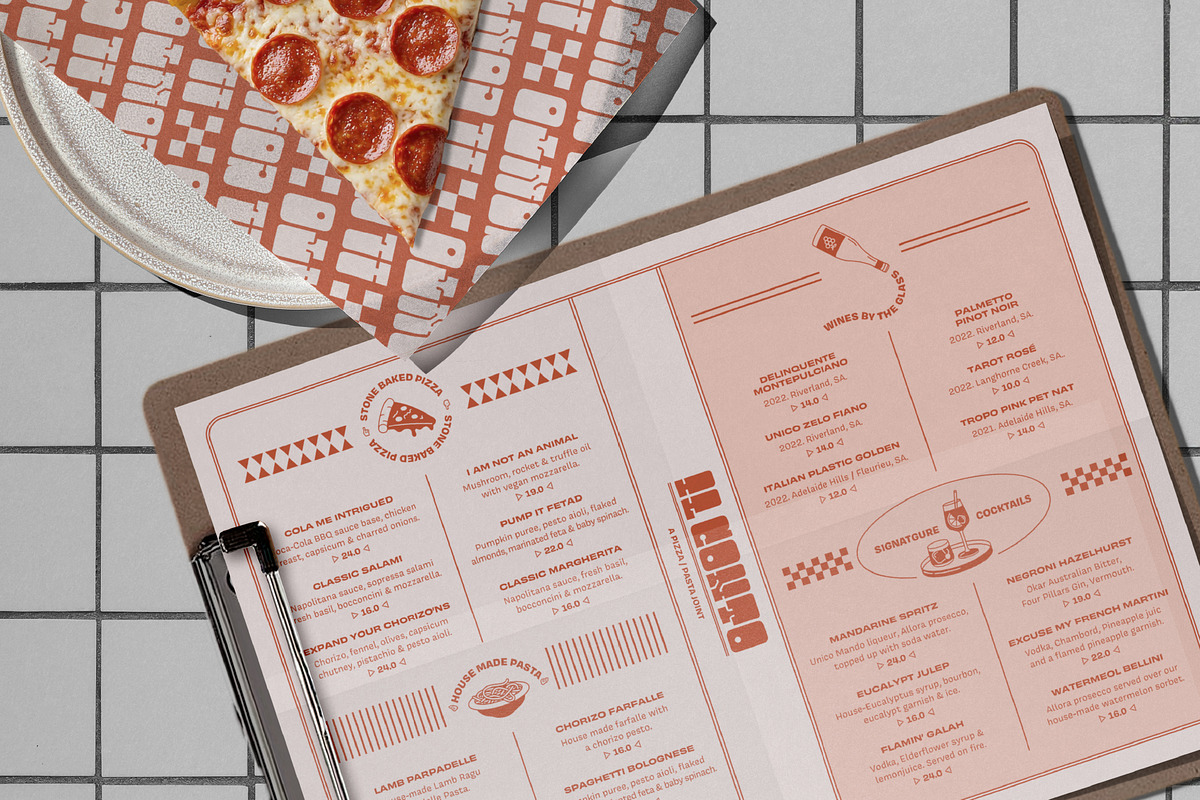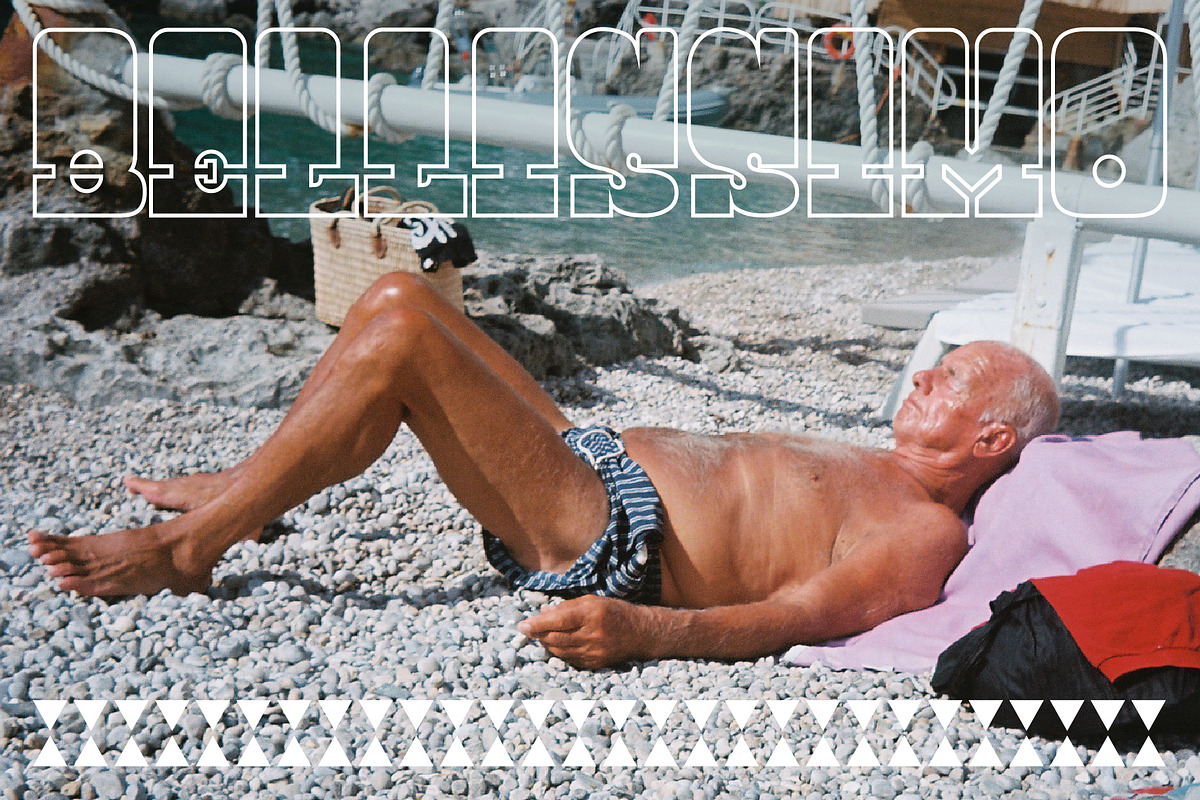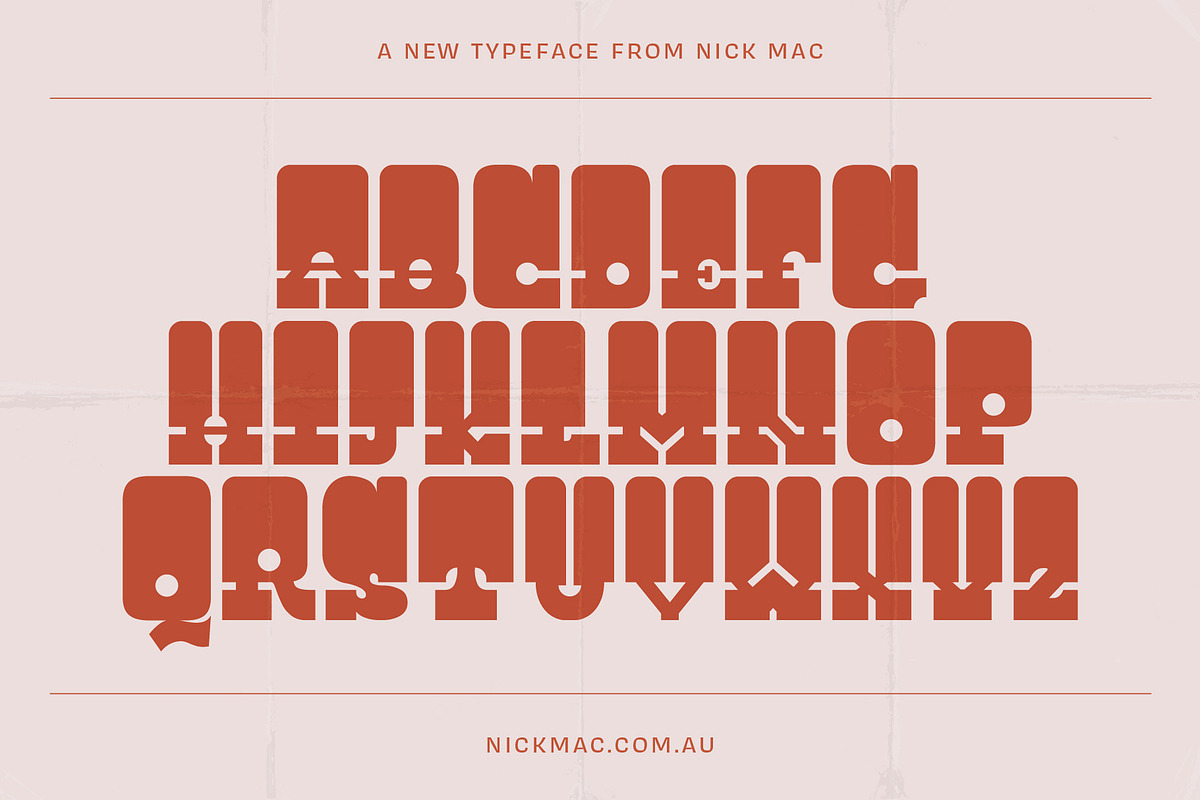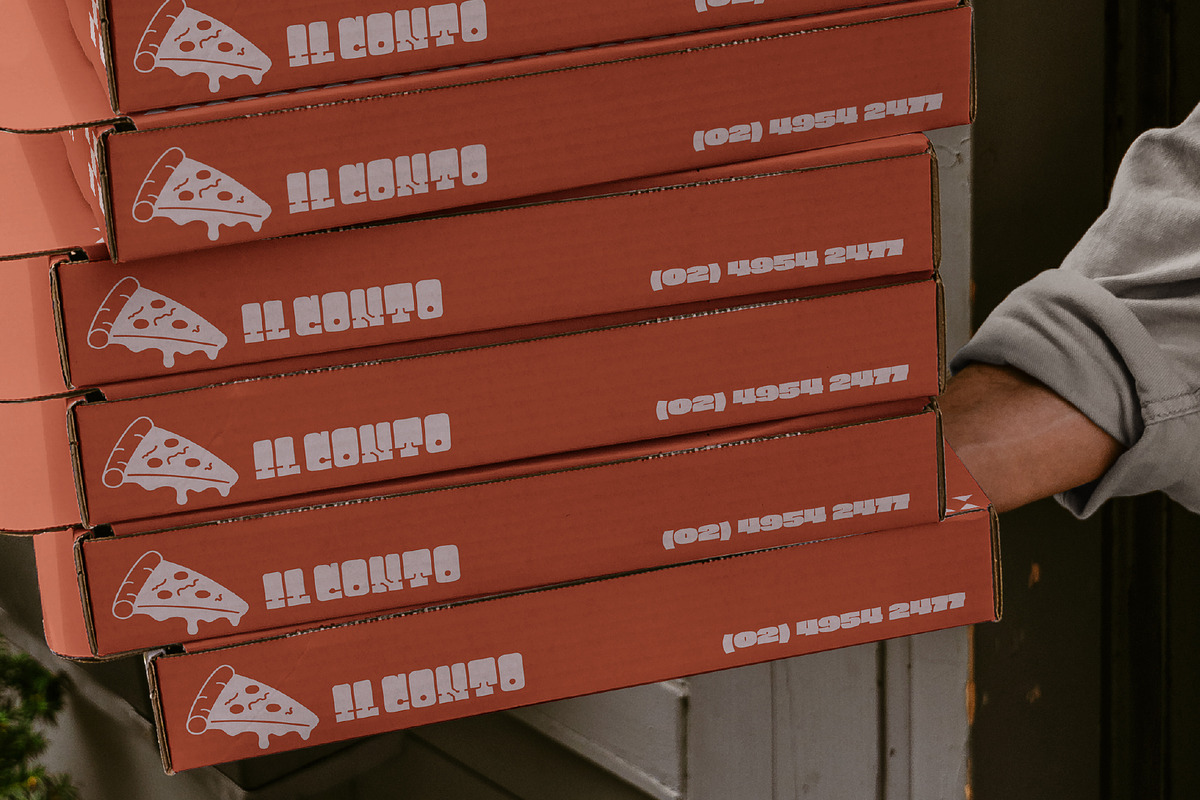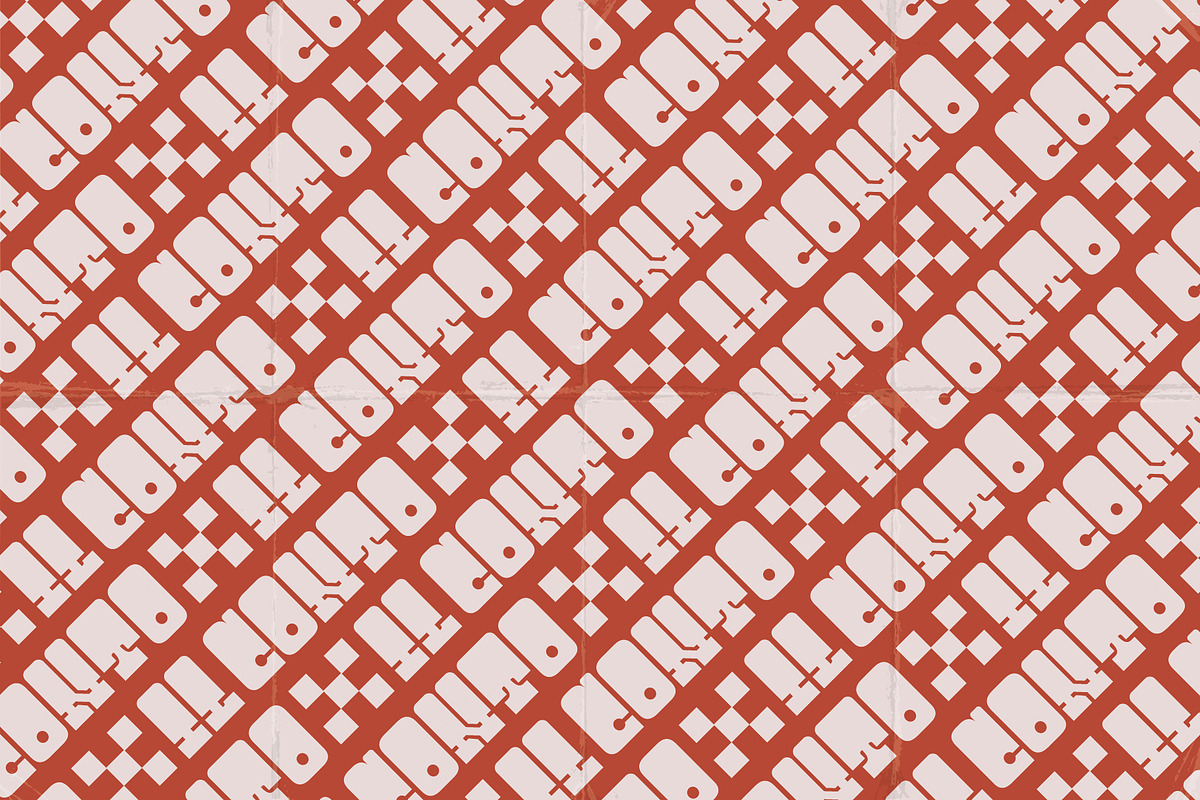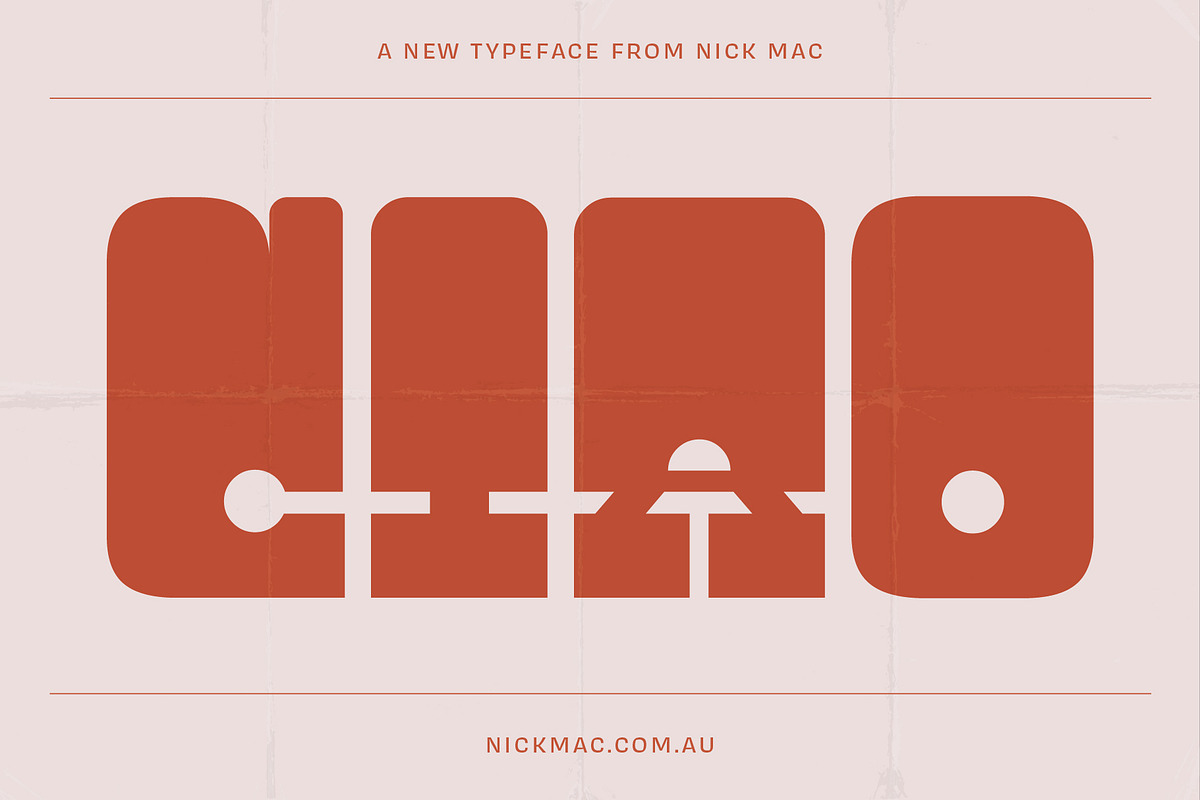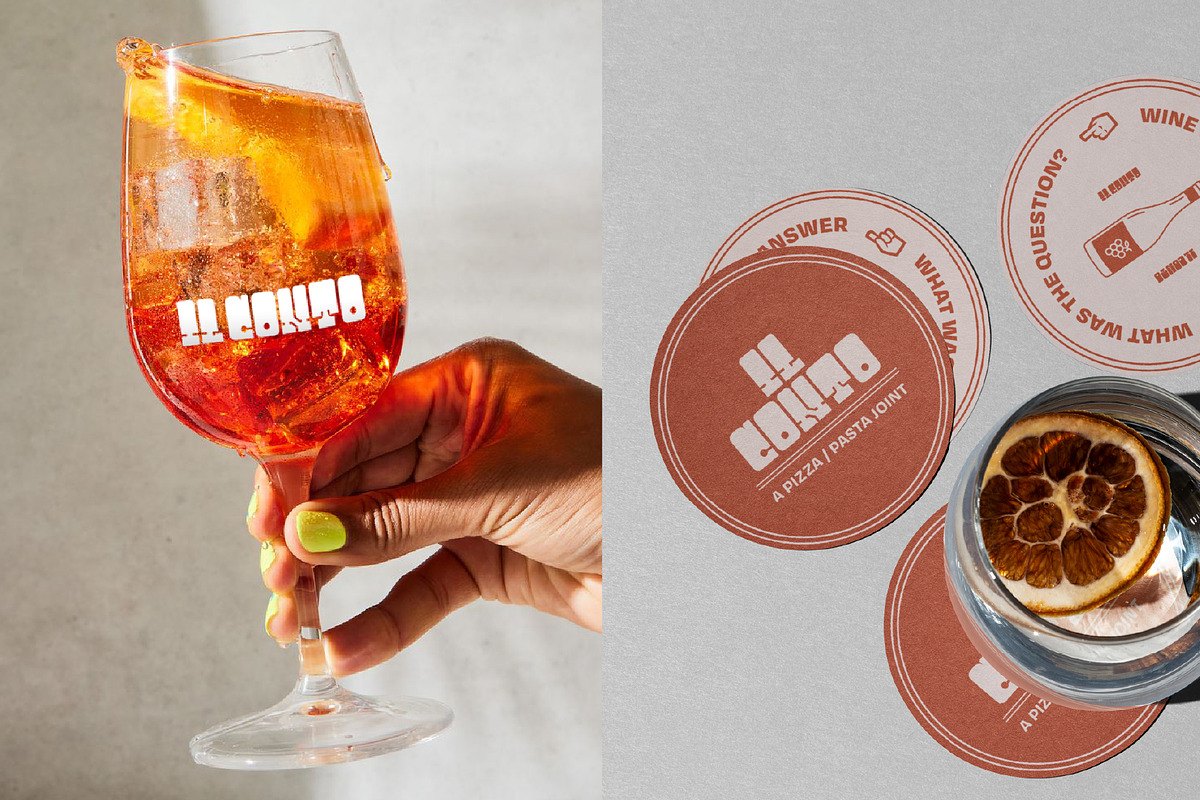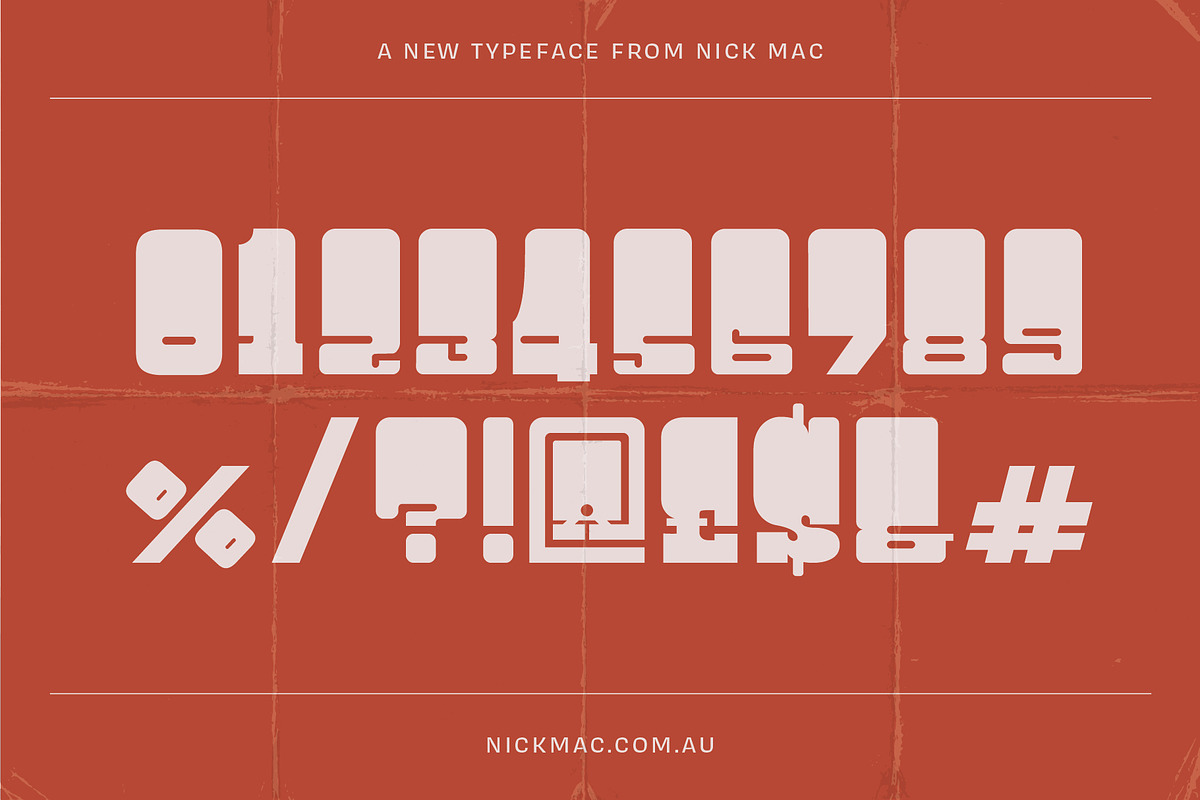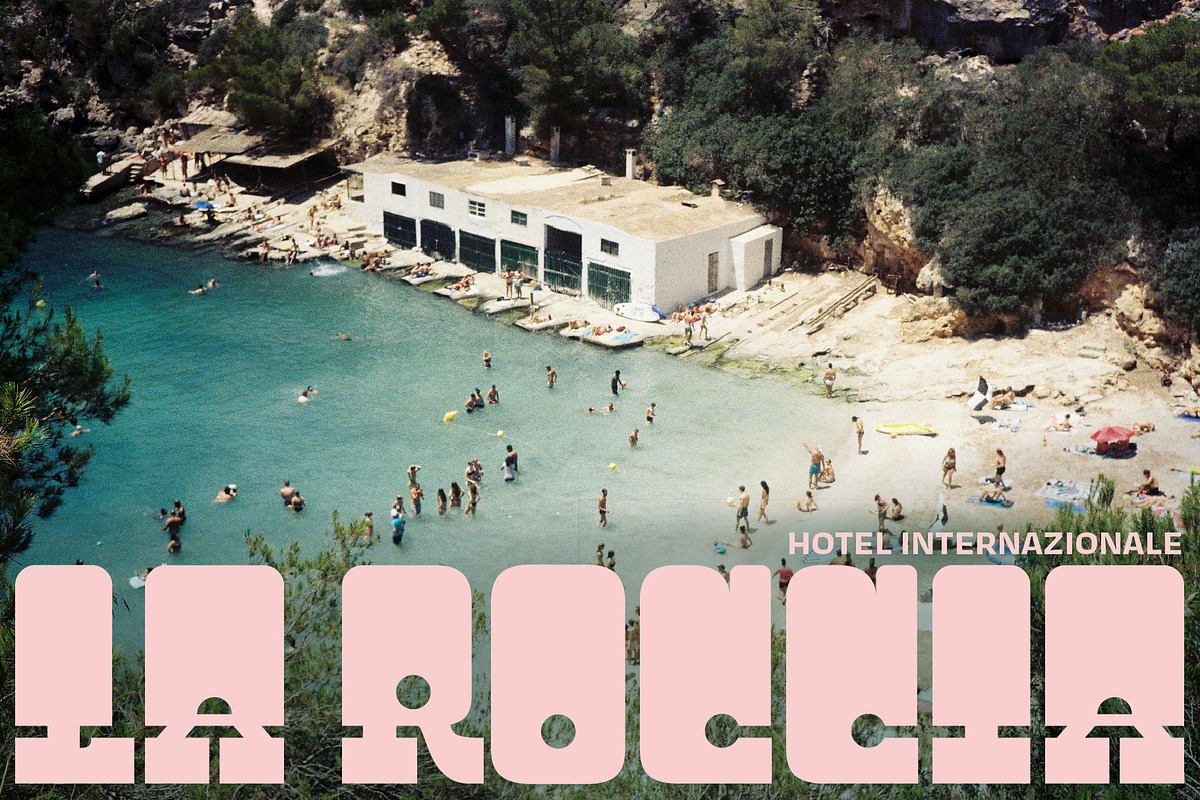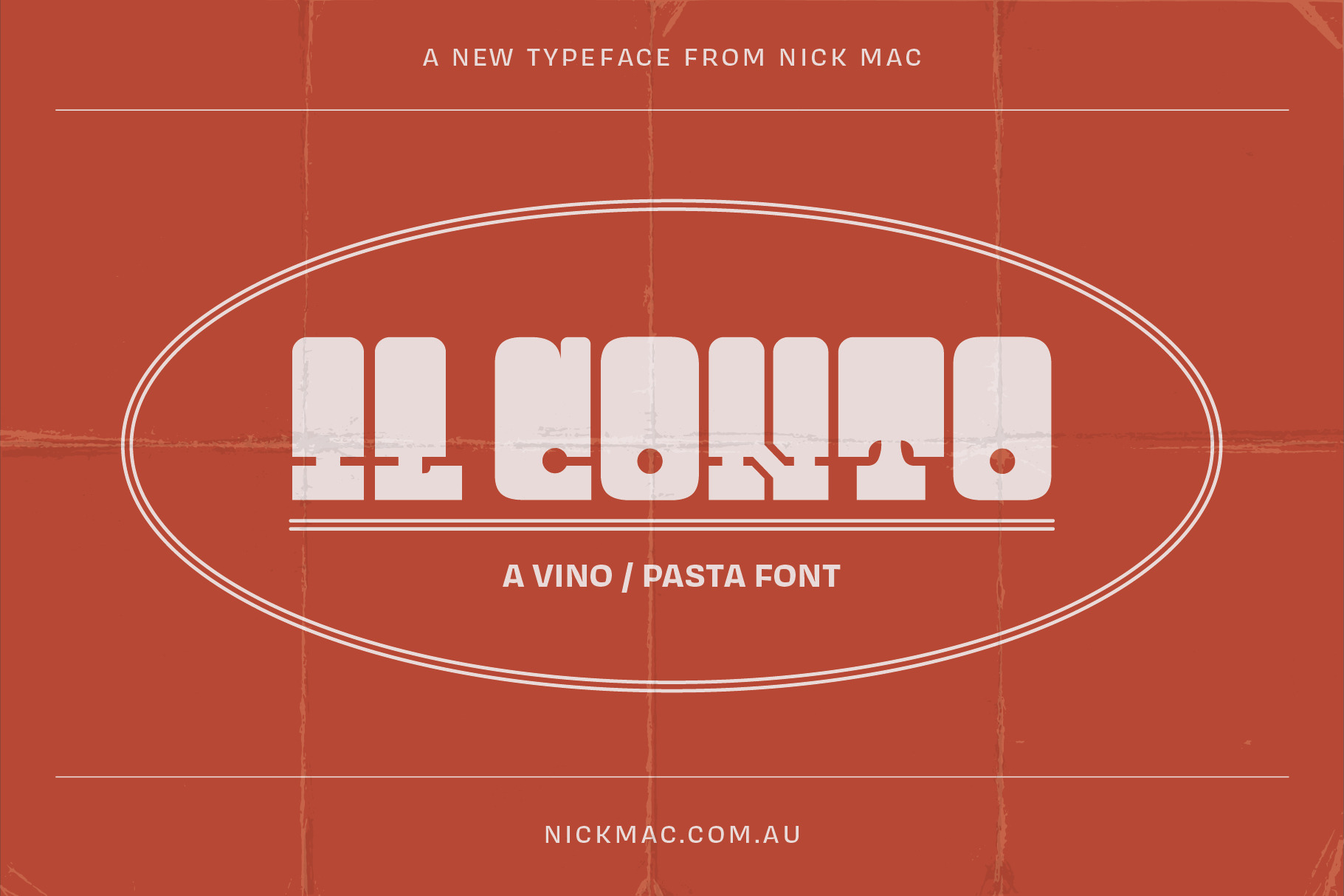
Il Conto - An Italian Wine Bar Font
Il Conto is a display face inspired by the Italian wine bar. Not the polished, modern kind, the ones that have been there since the 70s: a narrow room in Bologna, a counter in Milan, a place in Naples where the tables spill out onto the street and the sign has been repainted six times.
It came out of a long look at that world. Hand-painted signage, enamel plaques, faded awnings, the lettering on a bottle of house red that nobody has redesigned in fifty years.
The forms are wide and heavily rounded, with counters dropping out as circles and dots rather than conventional bowls. Crossbars sit low. Everything is built on the same rounded rectangle, so set as a headline it locks into a solid block of colour with small punched-out details doing the work. It's closer to a logotype than a text face, and that's deliberate.
Uppercase A to Z, plus a second set of caps on the lowercase keys
Numerals 0 to 9
Punctuation, including typographic quotes
Currency: euro, sterling, dollar, cent, yen
Maths and symbols: plus, multiply, divide, equal, percent, less, greater, ampersand, asterisk, hash, at, bullet, brackets and braces
Accented uppercase characters, covering the common Western European set
Wine labels, menus, hospitality branding, posters, record sleeves, apparel, packaging and title cards. It's at its best large and tight, with two or three words maximum. It's not built for body copy or small sizes, so pair it with a simple grotesque for anything you actually need people to read.